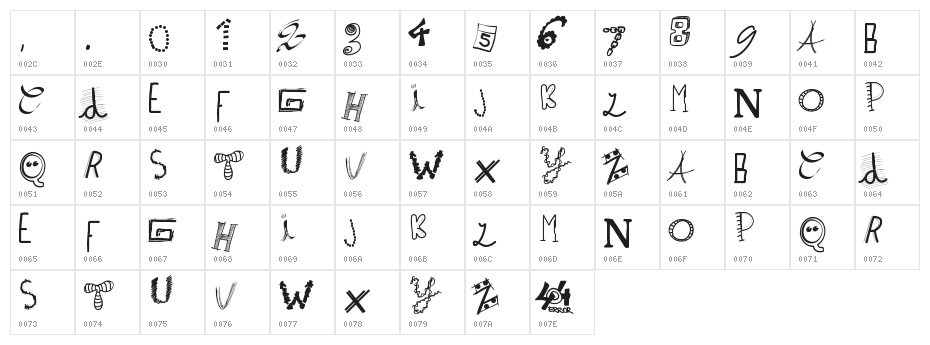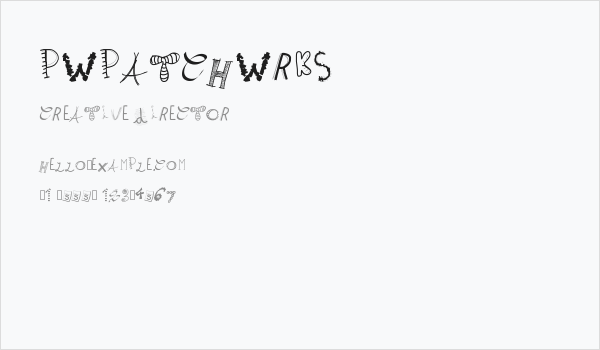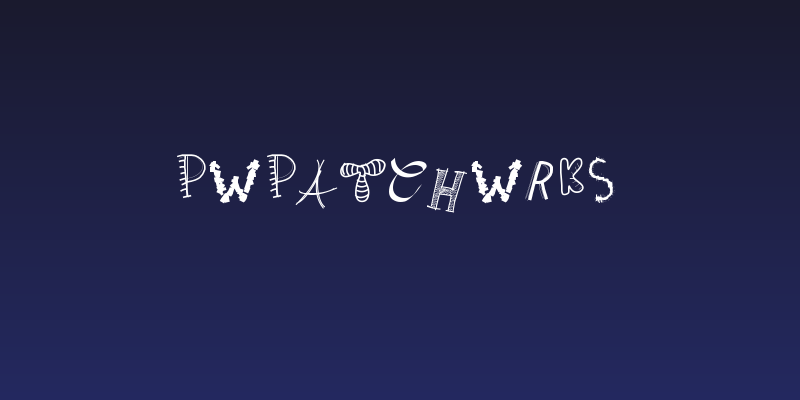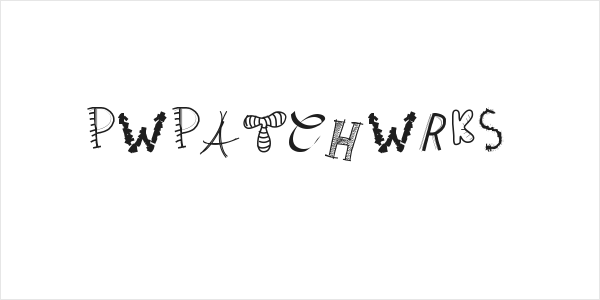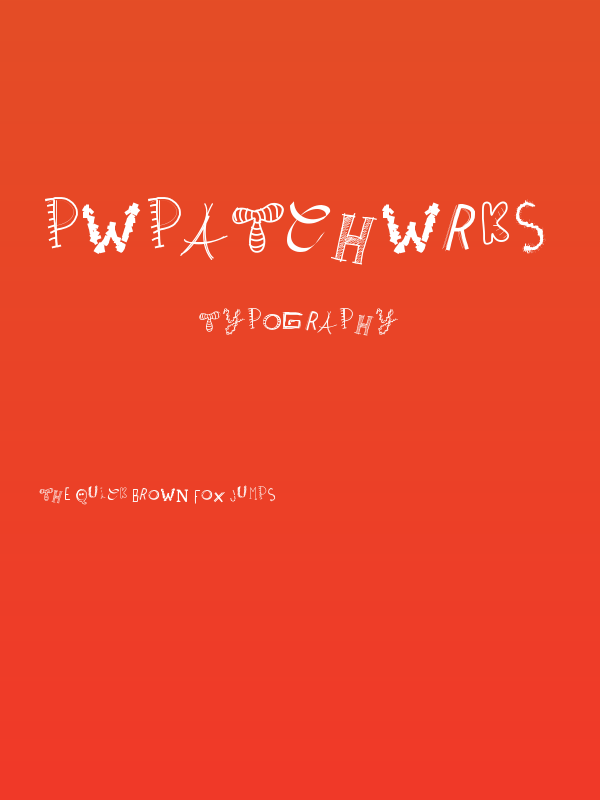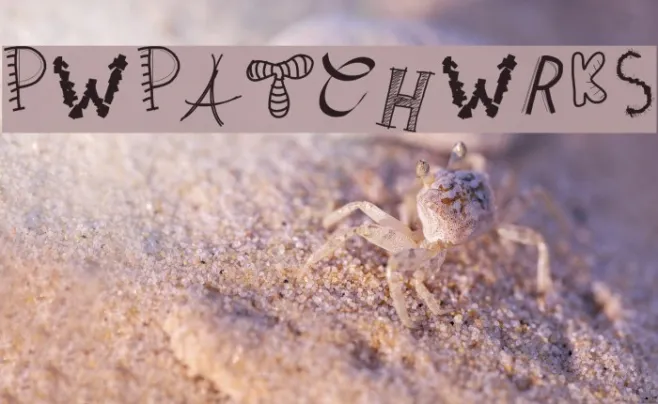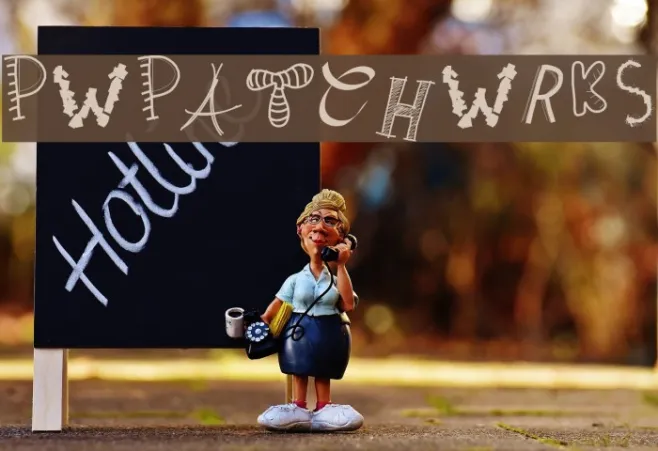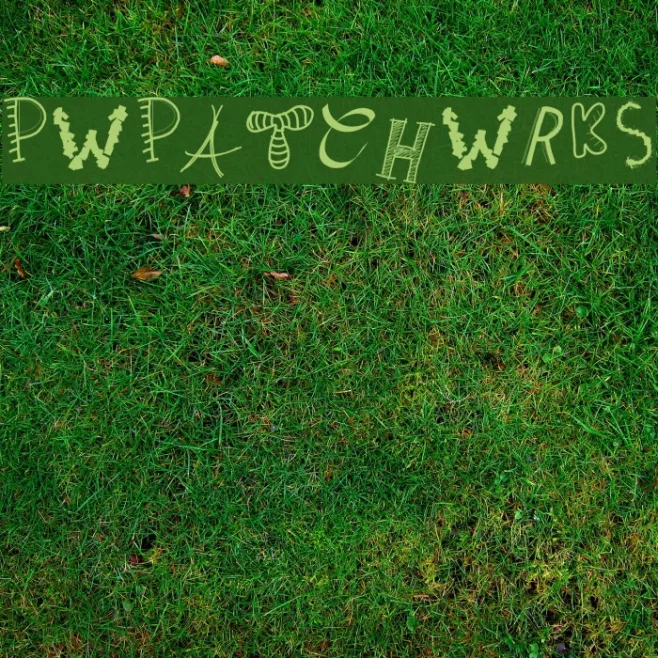
PWPatchwrks Font
PWPatchwrks Description
This playful and eclectic font features a diverse range of styles within its characters, each letter exhibiting a unique design. The uppercase letters are bold and varied, with some incorporating whimsical elements like dots, stripes, and abstract shapes. The lowercase letters continue this theme, offering a mix of quirky and artistic designs. Numbers are equally creative, with each digit presenting a distinct and imaginative appearance. Special characters maintain the playful aesthetic, adding to the font's overall charm. This font is perfect for projects that require a fun and unconventional look, making it ideal for creative and artistic endeavors.
| Proposed Projects | Ideal for children's books, creative posters, playful branding, and artistic projects. |